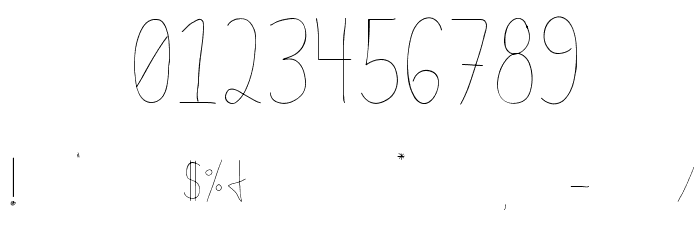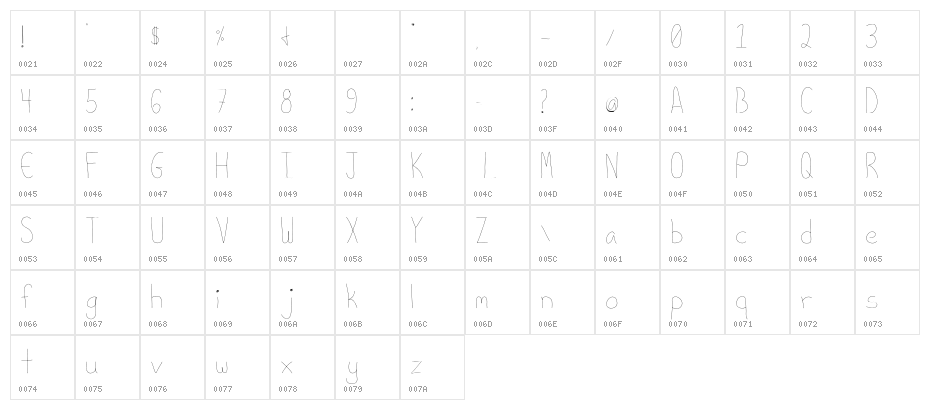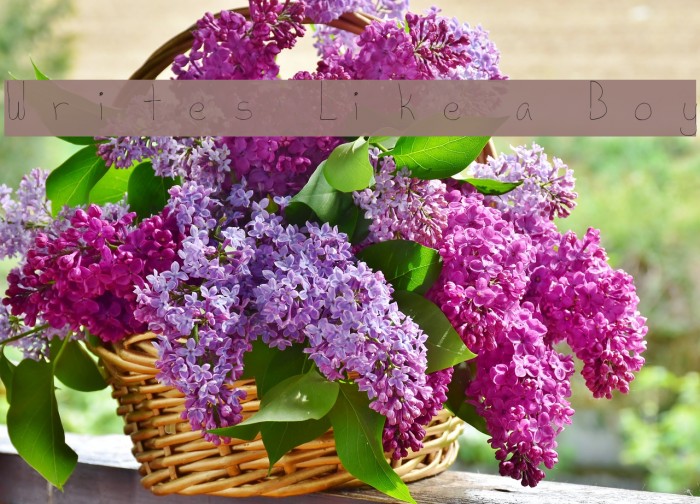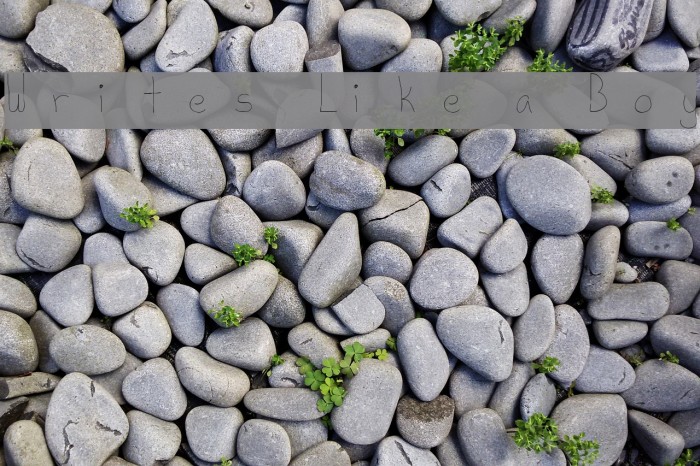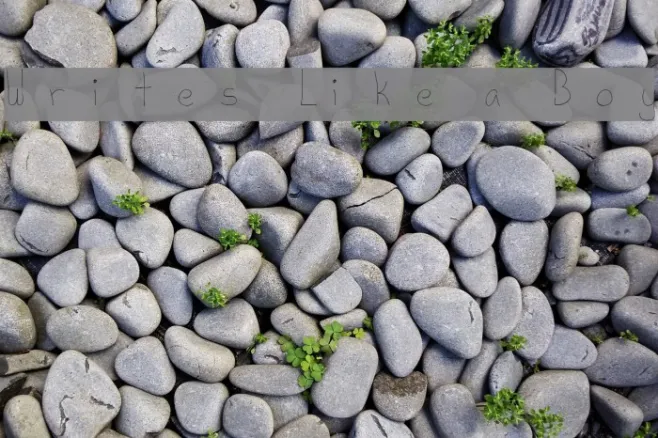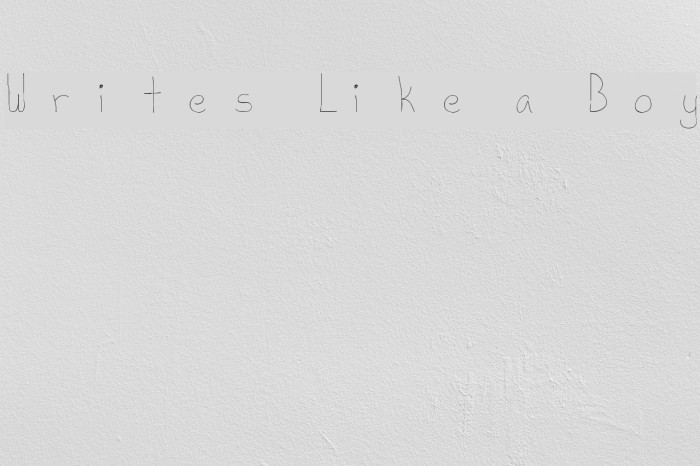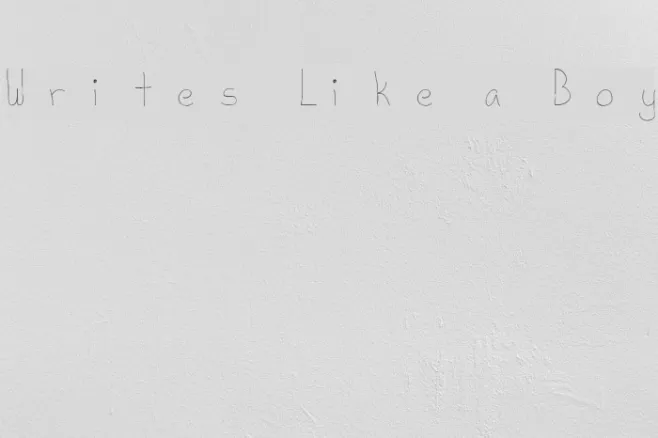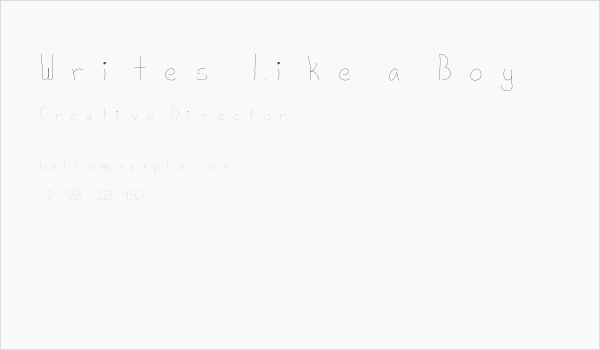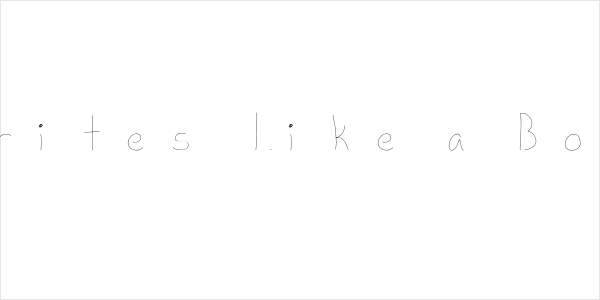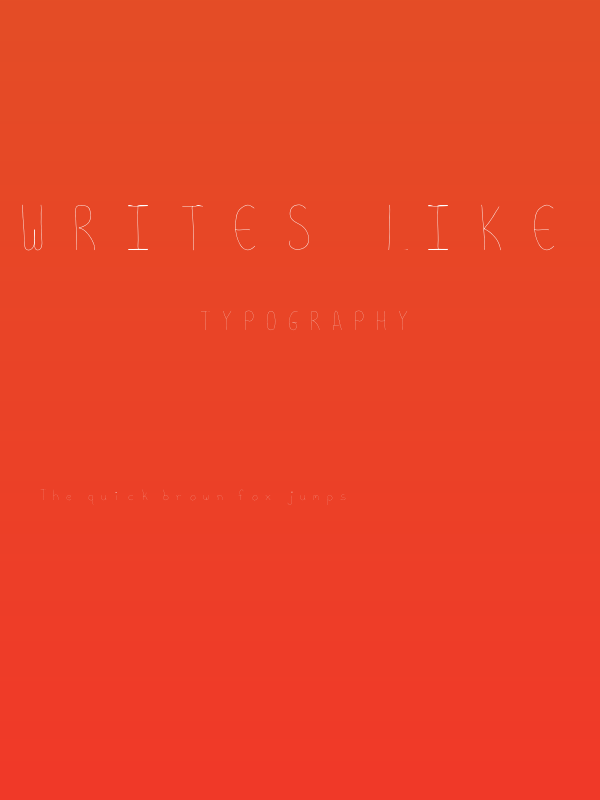
Writes Like a Boy Font
Writes Like a Boy Description
This font features a playful and casual handwritten style, reminiscent of a child's writing. The letters are thin and slightly irregular, giving a whimsical and informal appearance. The uppercase and lowercase characters maintain a consistent height, while the numerals and special characters follow the same playful aesthetic. The strokes are light, with minimal contrast, creating a delicate and airy feel. This font is ideal for projects that aim to convey a sense of innocence, creativity, or informality.
Overall StyleCasual, Playful
Use CaseHeadlines, Informal text, Creative projects
Proposed ProjectsGreat for children's books, playful branding, casual invitations, and creative projects.